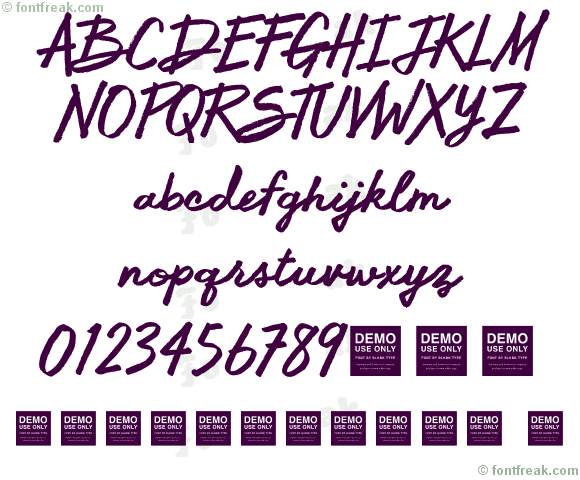
Free Spirit
About Free Spirit
The Free Spirit font by BLKBK Fonts epitomizes an elegant script style, characterized by fluid, sweeping strokes that convey a sense of artistic freedom. This handwritten typeface features a moderate stroke weight with subtle variations that add a dynamic contrast, enhancing its visual appeal. The spacing between the letters is thoughtfully designed, allowing for legibility while maintaining an organic feel, making it perfect for various applications.
The Free Spirit font is a versatile choice for several use cases. It shines in wedding invitations, where its romantic curves can set the mood for a special day. Additionally, it works beautifully on movie posters, lending a whimsical touch that captivates audiences. Restaurant menus are another ideal application, as the font's charm can elevate the dining experience by making the menu more inviting. Furthermore, it can be effectively used in branding materials for artisan businesses, helping to convey a sense of creativity and uniqueness.